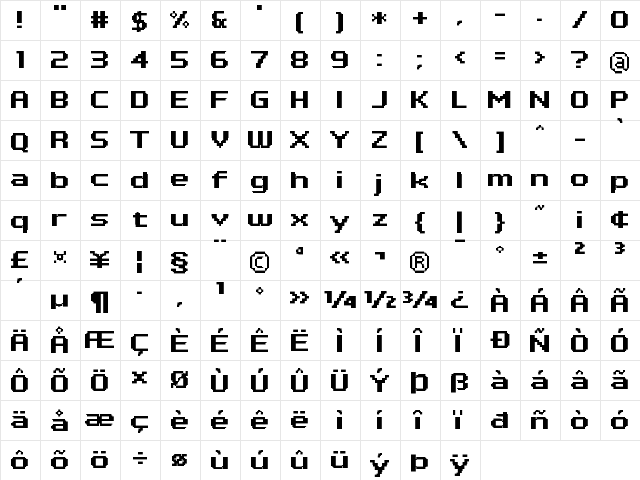
FFF Atlantis Condensed Regular Font Preview
FFF Atlantis Condensed Regular
FFF Atlantis Condensed Regular Font Details
| Foundry | Yuusuke Kamiyamane |
Design Context for FFF Atlantis Condensed Typeface
FFF Atlantis Condensed takes a measured approach to typography — its balanced proportions and neutral character make it a reliable workhorse for both digital and print work. Its narrow stance lets it pack a punch even in space-constrained designs.